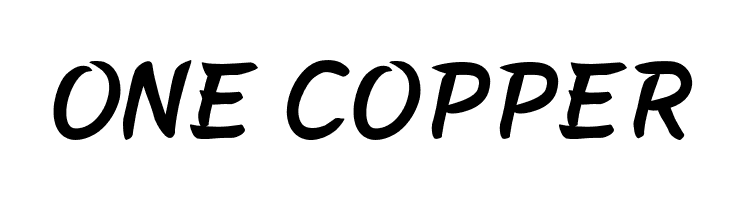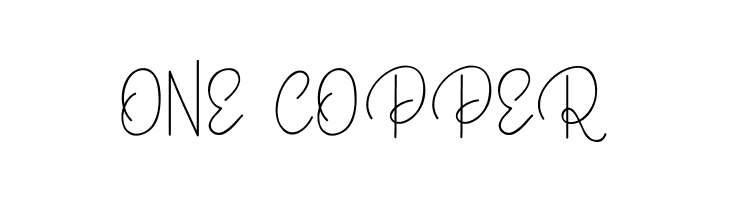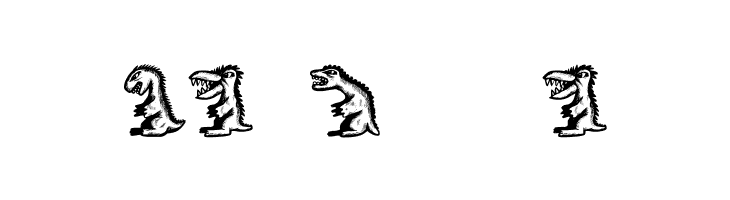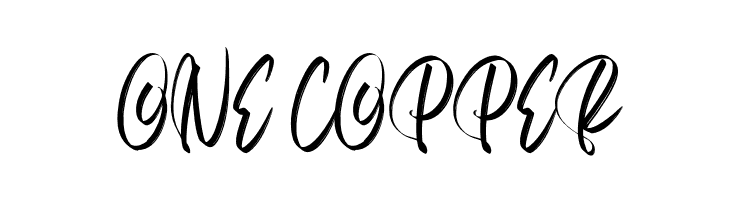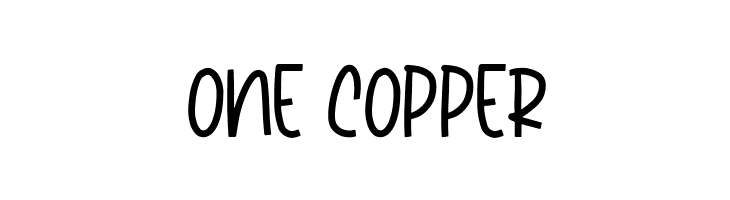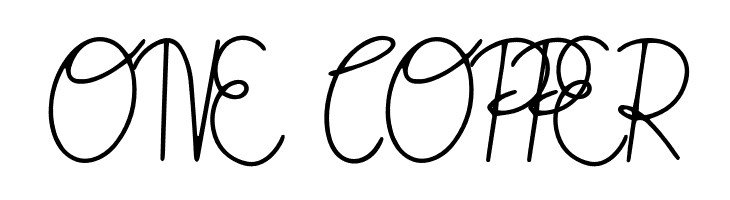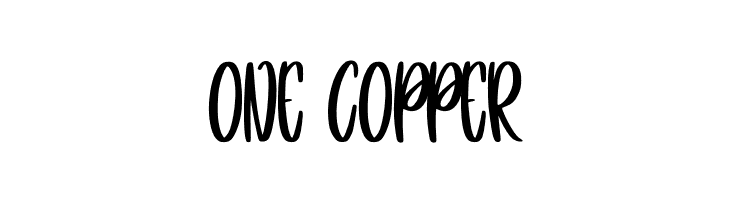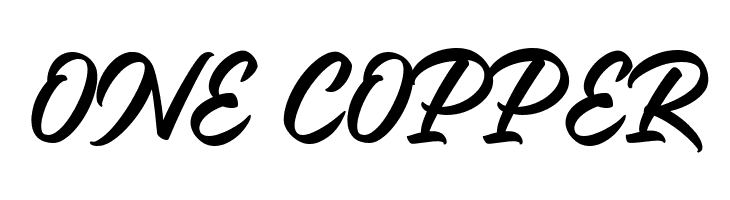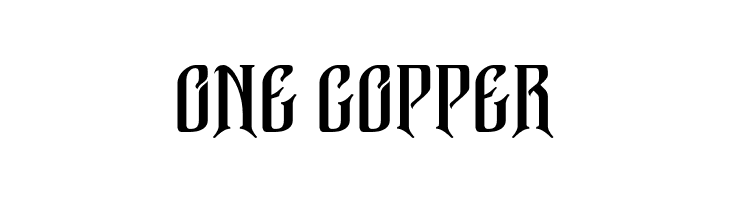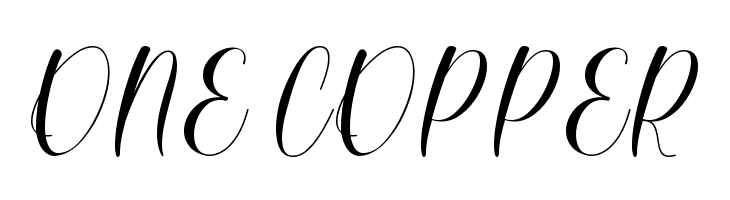
A graceful and flowing script font with elegant curves and loops.
A playful, dinosaur-themed decorative font with detailed, bold characters.
A playful, dinosaur-themed decorative font with detailed textures.
A playful handwritten font with a casual and friendly style.
A flowing, cursive script font with elegant loops and swashes.
A bold, gothic-inspired font with sharp serifs and a dramatic presence.
A bold, playful font with thick, rounded strokes and a bubbly appearance.
A decorative, bold font with a calligraphic and fantasy-inspired design.
A playful, bold, and hand-drawn font with a whimsical style.
A playful, hand-drawn font with bold, rounded characters.
An elegant and flowing script font with interconnected characters and refined curves.
A delicate and flowing script font with elegant, cursive letterforms.
An elegant and flowing script font with graceful, cursive letterforms.
An elegant, flowing script font with a sophisticated, handwritten style.
A bold, whimsical font with elegant curves and a modern touch.
A dynamic and expressive script font with fluid, cursive strokes.
A bold, modern sans-serif font with clean lines and geometric structure.
A modern, elegant script font with high contrast and flowing cursive style.
A sophisticated cursive font with elegant, flowing strokes and dramatic contrasts.
A dynamic, flowing script font with elegant, interconnected letters.
A playful, bold font with a hand-drawn, whimsical style.
A bold, italic handwritten font with a dynamic and fluid style.
A bold, italic script font with a playful, handwritten style.
A lively and dynamic script font with flowing, cursive letterforms.
A bold, playful handwritten font with dynamic, flowing letterforms.
A sophisticated serif font with high contrast and elegant serifs.
A bold, cursive font with dynamic, flowing strokes and high contrast.
A bold, dynamic script font with flowing cursive letterforms.
A flowing, elegant script font with dynamic, cursive strokes.
A bold, textured brush script font with a handcrafted, artistic feel.
A playful, elegant script font with a handwritten style.
A playful and artistic script font with fluid, continuous strokes.
An elegant and sophisticated script font with flowing, interconnected letters.